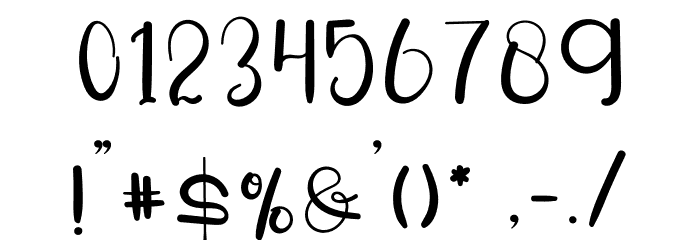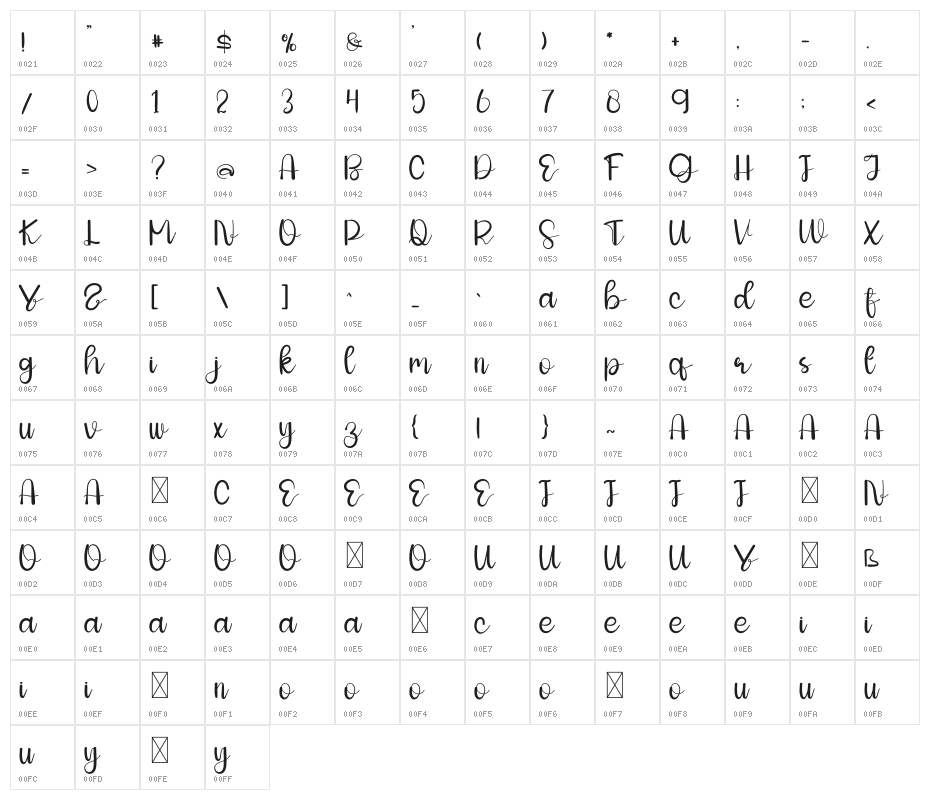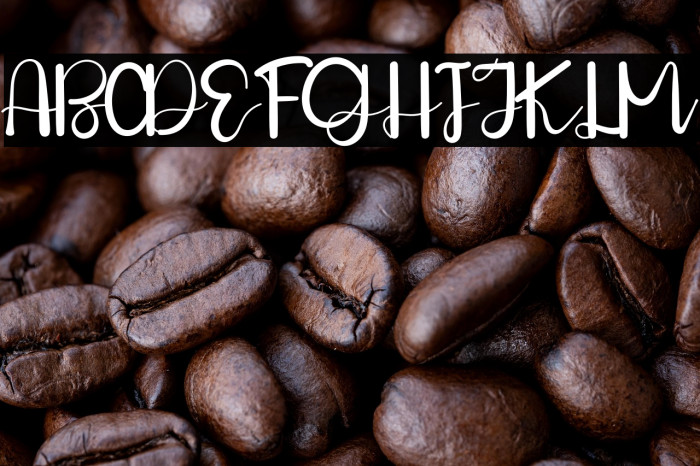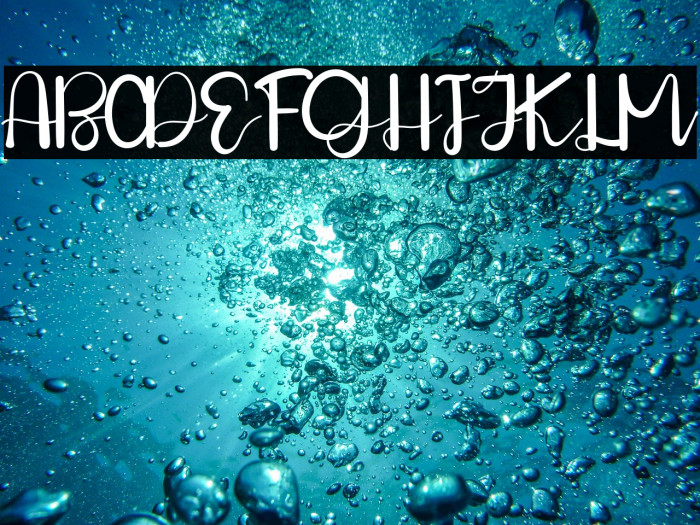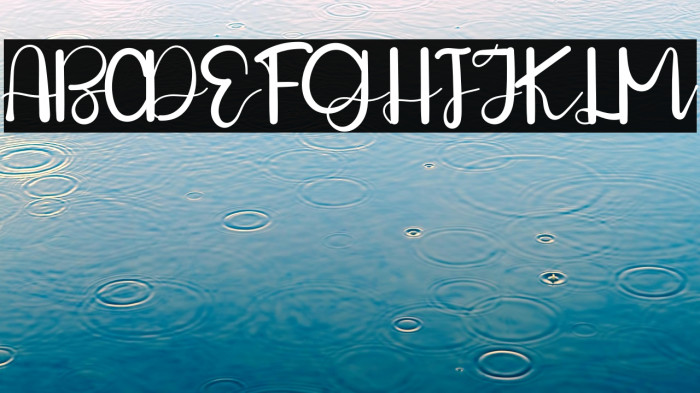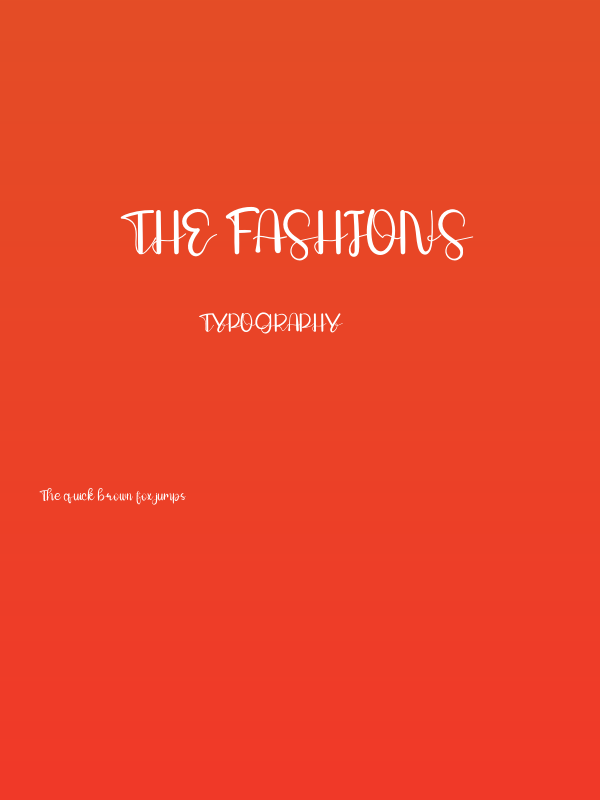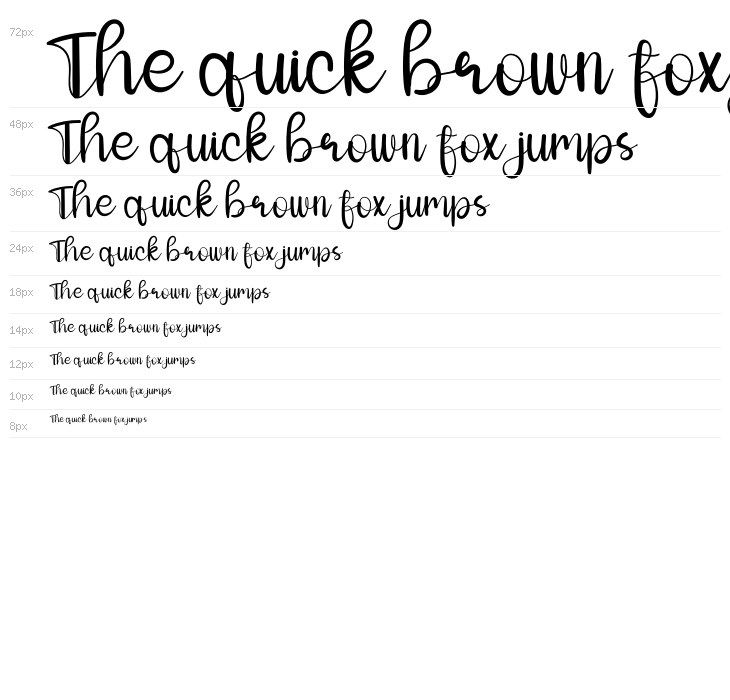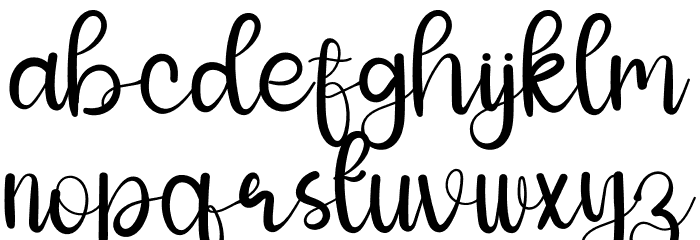
THE Fashions Font
THE Fashions Description
This font features a playful and elegant script style with a handwritten appearance. The uppercase letters are bold and fluid, with unique loops and swirls that add a touch of whimsy. The lowercase letters maintain a consistent flow, complementing the uppercase with their rounded forms and smooth connections. Numbers are clear and distinct, while special characters are creatively integrated, maintaining the overall aesthetic. The font's design is both artistic and readable, making it suitable for a variety of creative projects.